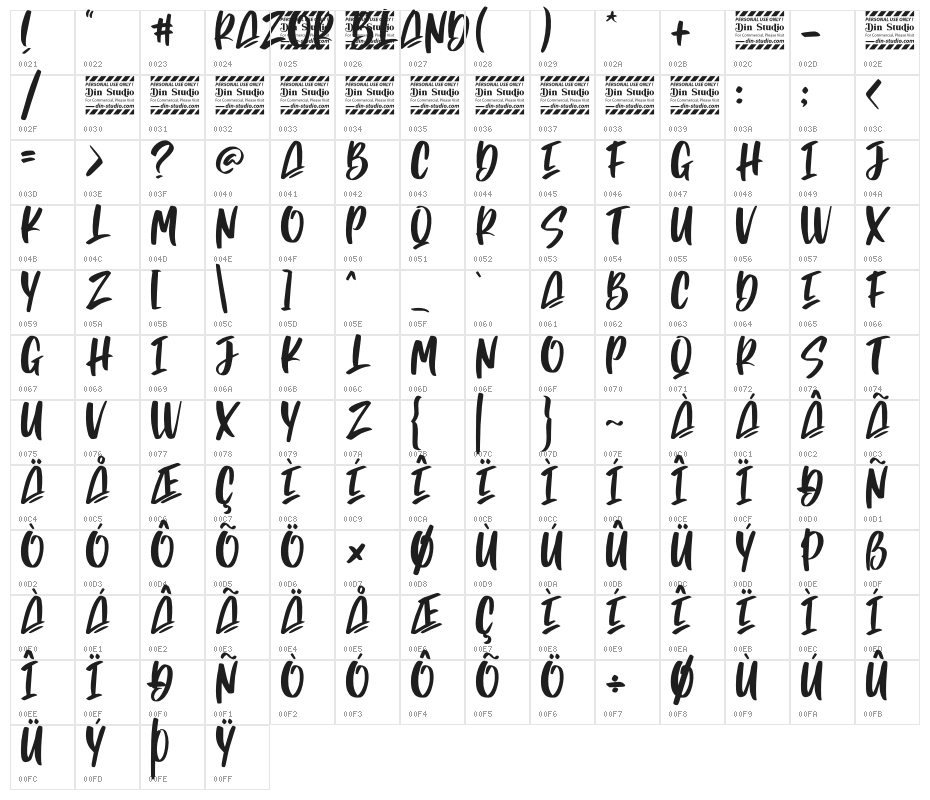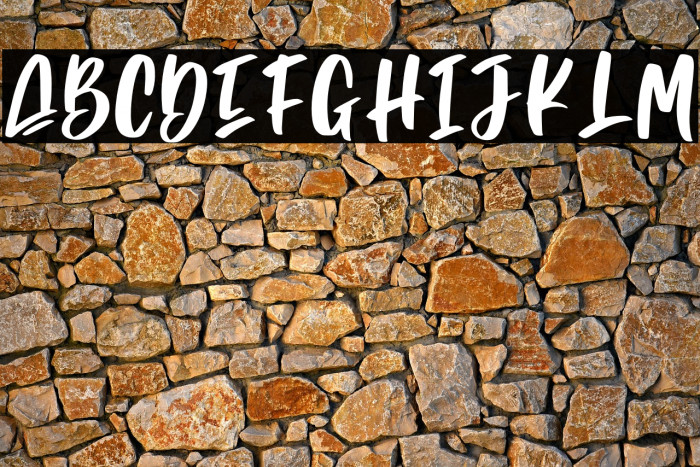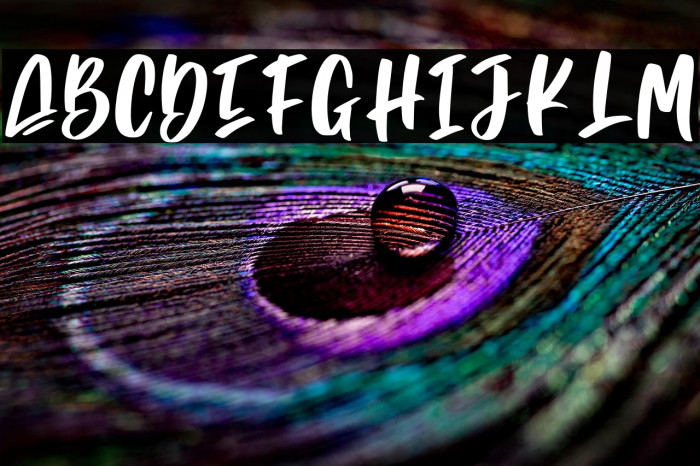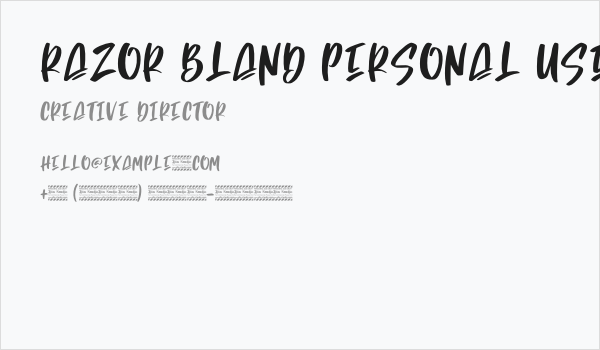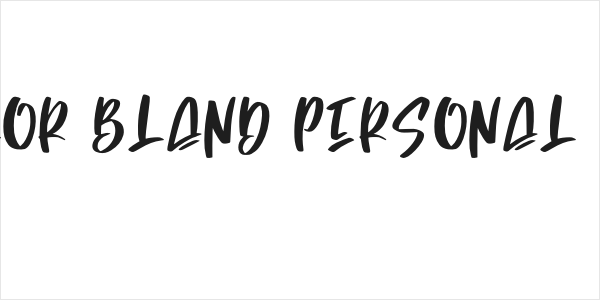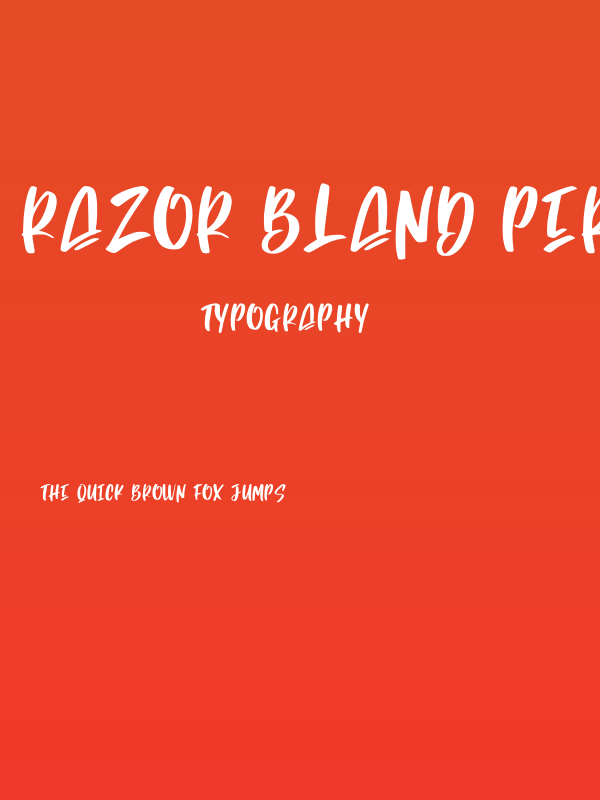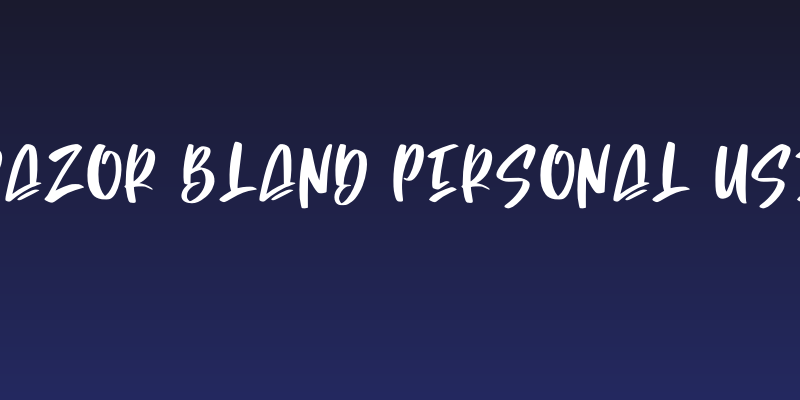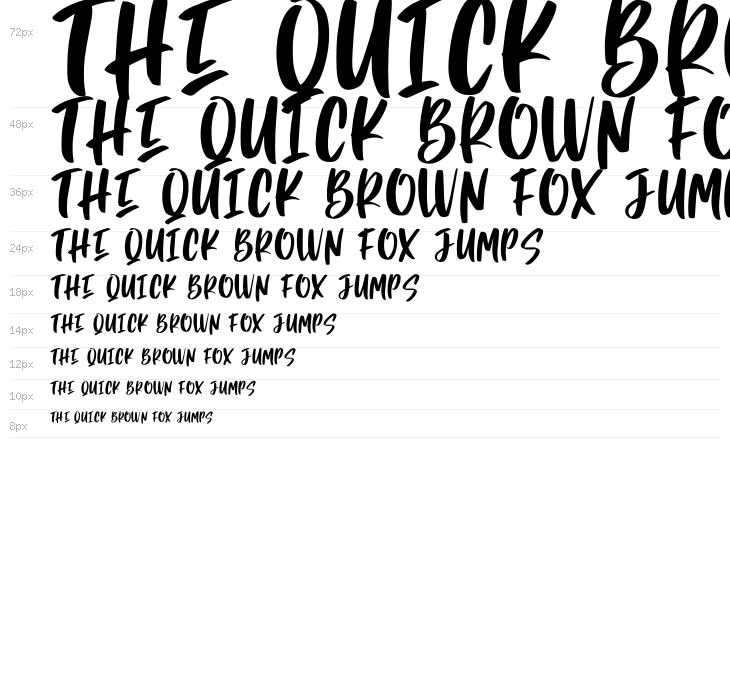
Razor Bland Personal Use Font
Razor Bland Personal Use Description
This font features a bold, energetic script style with a brush-like appearance. The letters are fluid and dynamic, giving a sense of movement and personality. Each character is distinct, with varying stroke widths that add to its lively and expressive nature. The uppercase and lowercase letters maintain a consistent style, while the numerals and special characters complement the overall design. This font is ideal for projects that require a personal touch or a creative flair, such as branding, invitations, or artistic designs.
| Use Case | Logos, Headlines, Artistic designs |
| Proposed Projects | Ideal for branding, invitations, artistic designs, and any project needing a personal touch. |